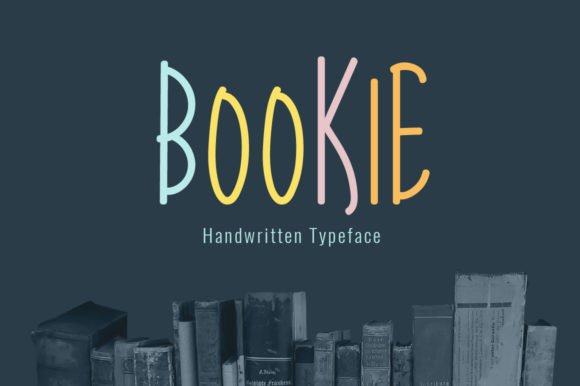
When Creativity Strikes
You’re brainstorming ideas for your next design project, and suddenly, a burst of inspiration hits you. You envision a playful, handwritten font that perfectly captures the essence of your brand or message. This is exactly what happens when you stumble upon the Bookie Font – an amazing handwritten font that brings a touch of fun and personality to your designs.
The Bookie Font is a versatile tool designed for a wide range of applications, from logos and t-shirts to print designs, website headers, and photo frames. Its playful feel makes it an ideal choice for designers looking to add a unique touch to their work. With the Bookie Font, you can create eye-catching designs that stand out from the crowd and leave a lasting impression on your audience.
Key Features of Bookie Font
- Unique Characteristics: Bookie Font is designed to resemble a vintage, handwritten style, with unique ligatures and swashes that add a touch of elegance to any design.
- Font Family: Bookie Font is part of a larger font family, which includes multiple weights and styles, allowing designers to create a cohesive and professional look across different elements of a design.
- Scalability: Bookie Font is designed to be highly scalable, meaning it looks great in both small and large sizes, without losing its unique character or becoming distorted.
Bookie Font Review
When I first saw the Bookie Font, I was immediately drawn in by its modern and sleek aesthetic ✨. The clean lines, rounded edges, and subtle flair at the end of each letter make it a true showstopper. The font’s versatility also shines through in its multiple weights and styles, allowing designers to easily switch between bold, italic, and regular variations.
The Bookie Font’s open type features, including ligatures and contextual alternates, add an extra layer of sophistication and nuance to the design ✨. It’s clear that the font’s creators have put a lot of thought into making it a usable and functional tool for designers.
- ⚠️ Limited language support: Unfortunately, the Bookie Font’s language support is limited to Latin and some Cyrillic scripts, which may be a drawback for designers working on multilingual projects.
- ⚠️ Not suitable for small text: Due to its modern design, the Bookie Font can be difficult to read in small sizes, making it less ideal for body text or other situations where readability is crucial.
Overall, I think the Bookie Font is a solid choice for designers looking to add some modern flair to their projects ✨. While it may have some limitations, its strengths far outweigh its weaknesses, making it a valuable addition to any designer’s toolkit.
Bookie Font is ideal for use in creative projects such as invitations, posters, and social media graphics. It’s also a great choice for use in branding and logo design.